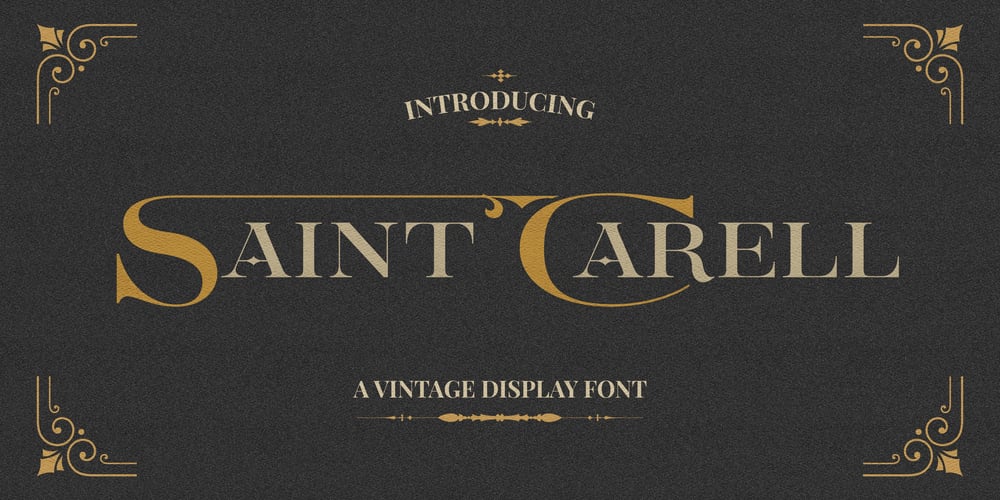
Saint Carell Font Family was designed by Måns Grebäck and published by Mans Greback. Saint Carell contains 6 styles and family package options. Saint Carell is a decorative serif typeface.With Victorian letterforms, this elegant font has great contrast, a classic appearance and floral details. Drawn and created by Mans Greback in 2022, it is a fancy typeface with a luxurious style and a chic personality.The Saint Carell typeface family consists of six professional styles:The clean Regular font, the ornamental Deco style, plus four more decorated versions for the greatest variability in your design. The font is built with advanced OpenType functionality and has a guaranteed top-notch quality, containing stylistic and contextual alternates, ligatures and more features; all to give you full control and customizability. It has extensive lingual support, covering all Latin-based languages, from Northern Europe to South Africa, from America to South-East Asia. It contains all characters and symbols you’ll ever need, including all punctuation and numbers.